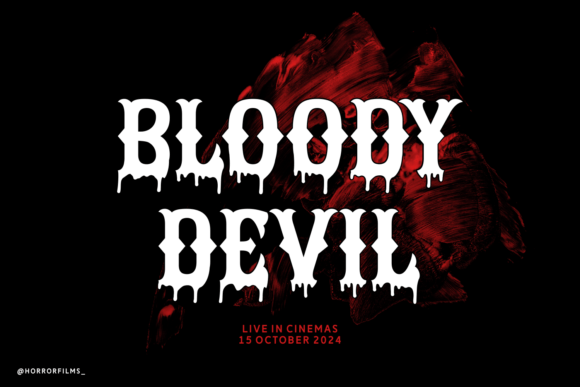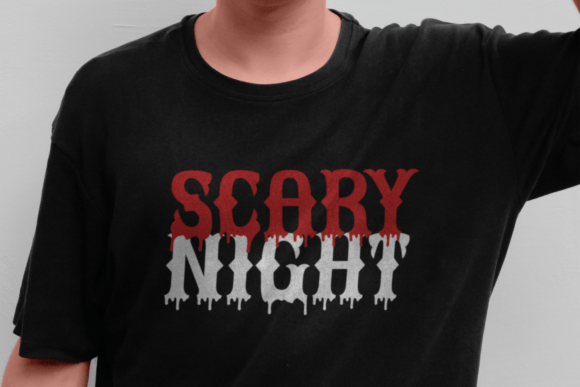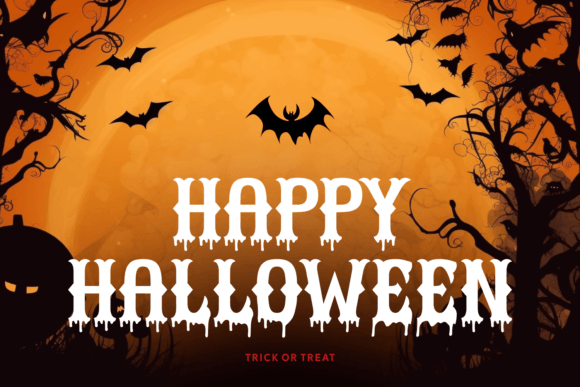
Introduction to Demoon Font
As a designer, you know the rush of finding that perfect font to bring your creative project to life. Imagine you’re working on a Halloween-themed design and you stumble upon a font that captures the essence of the spooky season. You’re immediately drawn to its eerie vibes, and you know you’ve found the perfect companion for your project. That’s where the Demoon Font comes in – a high-quality, free download that’s sure to add a touch of macabre magic to your design.
With its unique blend of dark and playful elements, the Demoon Font is a valuable resource for designers looking to create stunning visuals for their creative projects. From its transparent background to its intricate designs, this font is a must-have for anyone looking to add a touch of sophistication and whimsy to their designs.
Whether you’re working on a design for a spooky Halloween party or a festive Thanksgiving celebration, the Demoon Font is the perfect design resource to help you bring your vision to life.
Key Features of Demoon Font
- High-quality design resource with a transparent background, perfect for creative projects.
- Unique, modern font style that adds a touch of sophistication to any design or project.
- Perfect for use in logos, branding, typography, and other design elements where a high-quality font is essential.
Honest Review: Demoon Font
As a designer, I’m always on the lookout for high-quality design resources to elevate my creative projects. Recently, I stumbled upon the Demoon Font, and I must say, it’s been a game-changer. The font is available for free download, which is a huge plus, especially for indie designers and startups.
- ✨ High-quality design: The Demoon Font boasts a sleek and modern aesthetic that’s perfect for a variety of creative projects.
- ✨ Transparent background: The font’s transparent background makes it easy to layer and composite with other design elements.
- ✨ Versatile: The Demoon Font is suitable for a wide range of applications, from digital design to print materials.
- ⚠️ Limited character set: The font only includes a limited set of characters, which may be a drawback for designers who need a more comprehensive font set.
- ⚠️ No bold or italic weights: The Demoon Font only comes in a single weight, which can limit its versatility in certain design applications.
Overall, I’m impressed with the Demoon Font. While it has its limitations, its high-quality design and transparent background make it a valuable addition to any designer’s toolkit. If you’re looking for a reliable and stylish font for your creative project, I highly recommend giving the Demoon Font a try.